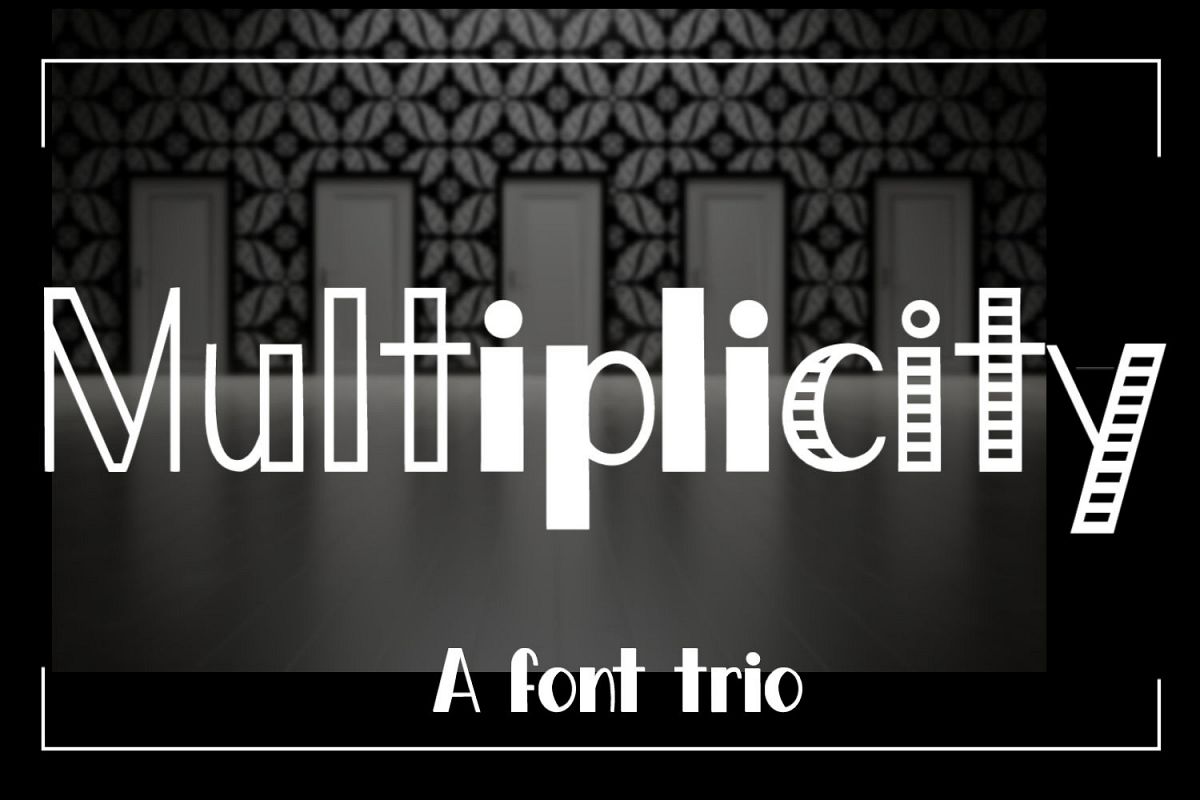
Multiplicity - A font trio
Multiplicity is a font trio that comes with three separate font files - (Hollow, Solid,  and Stripes). Each is made up of capital letters A-Z, lowercase letters a-z, numbers 0-9, accented characters and punctuation. Use them separately or mix and match!